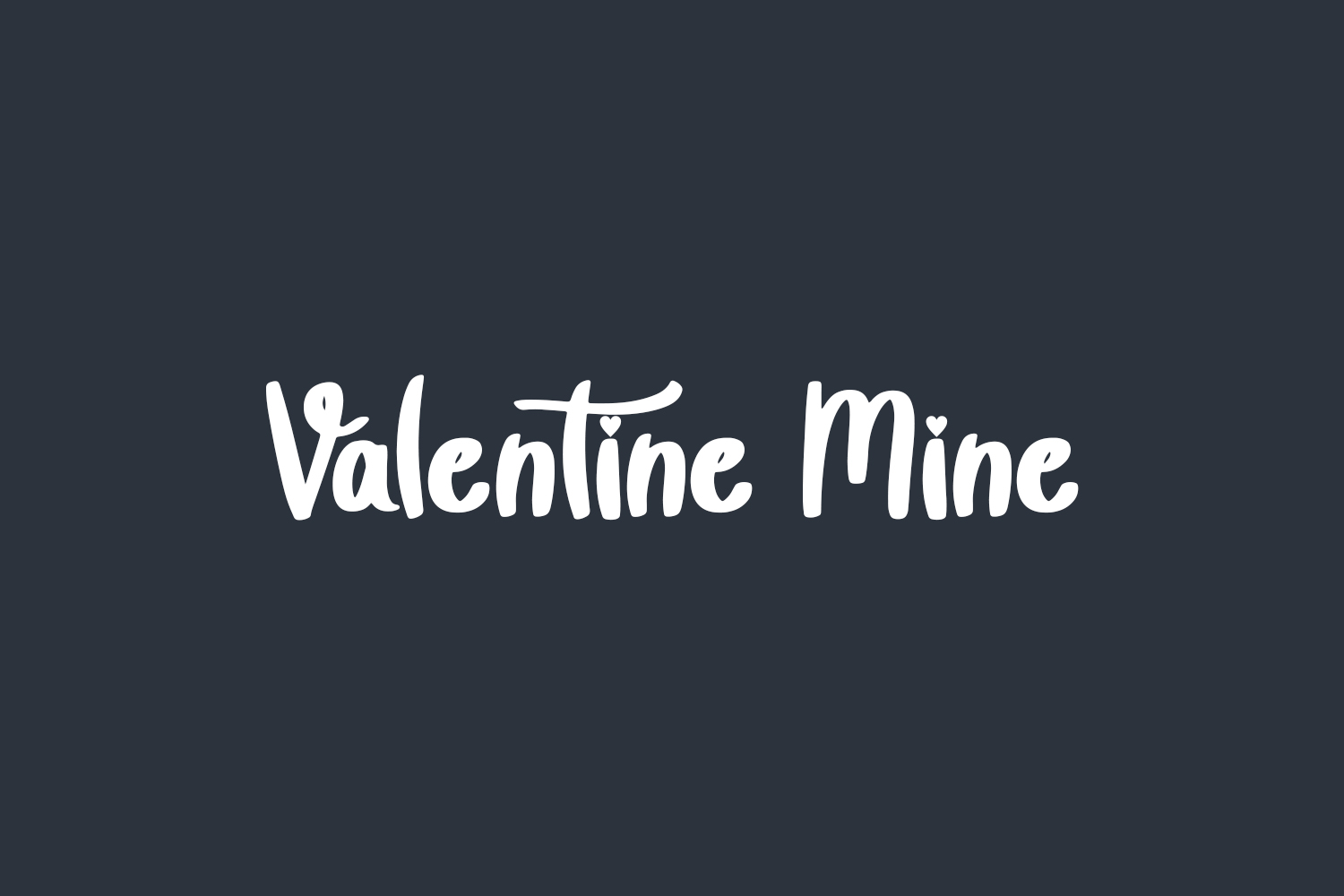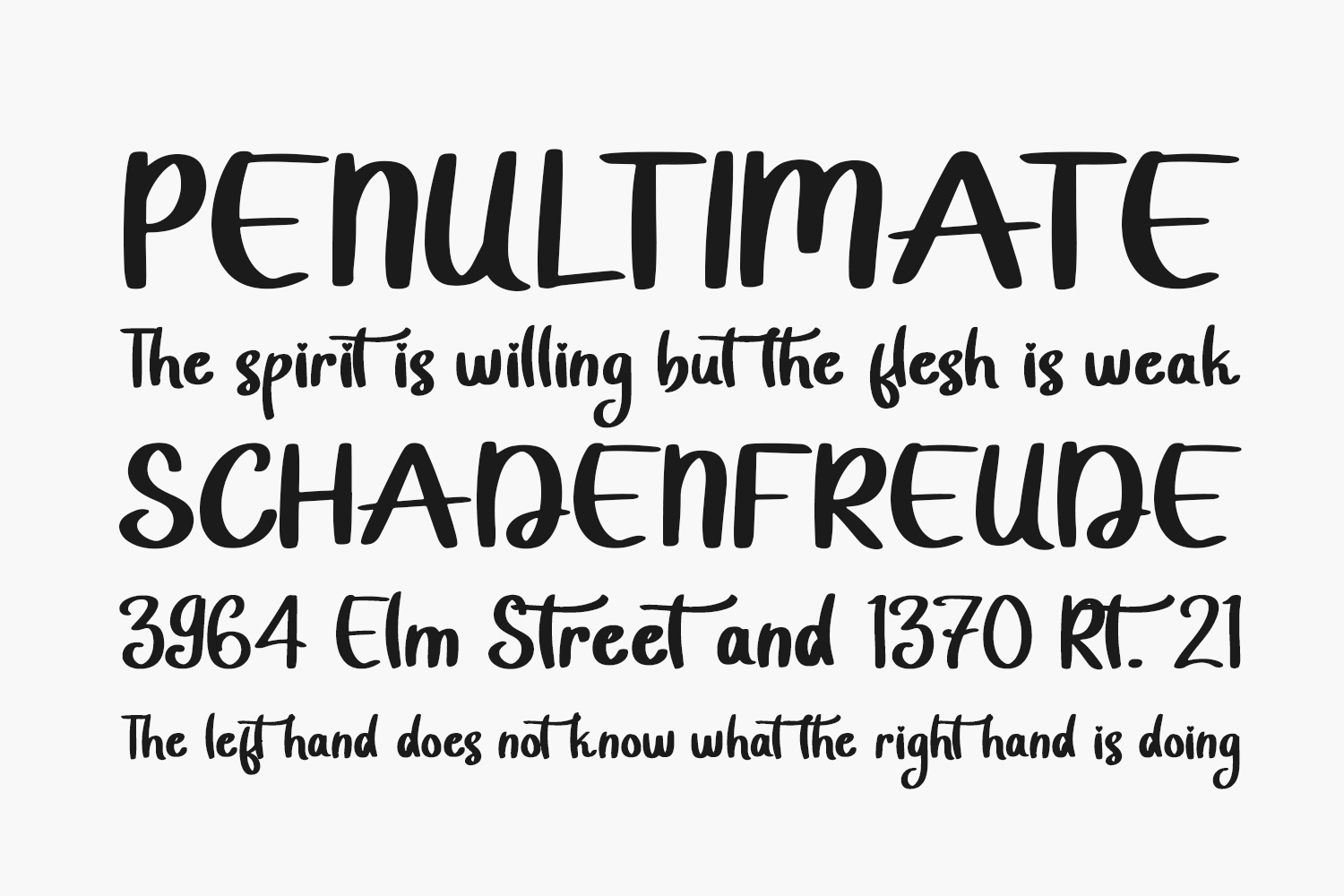
Celebrate the enchanting Valentine’s Day with the exquisite Valentine Mine Free Font. Crafted with love, this handwritten typeface is designed to bring a touch of romance to your projects. Its versatile shape and form make it a perfect choice for various designs, allowing you to infuse every creative endeavor with an outstanding and captivating handwritten appeal. Incorporate the Valentine Mine font into your works and witness how it effortlessly adds a delightful and romantic charm to each project. Valentine Mine Free Font is free for personal use only. Please purchase the full version for commercial use.
Designed by Alif Ryan Zulfikar